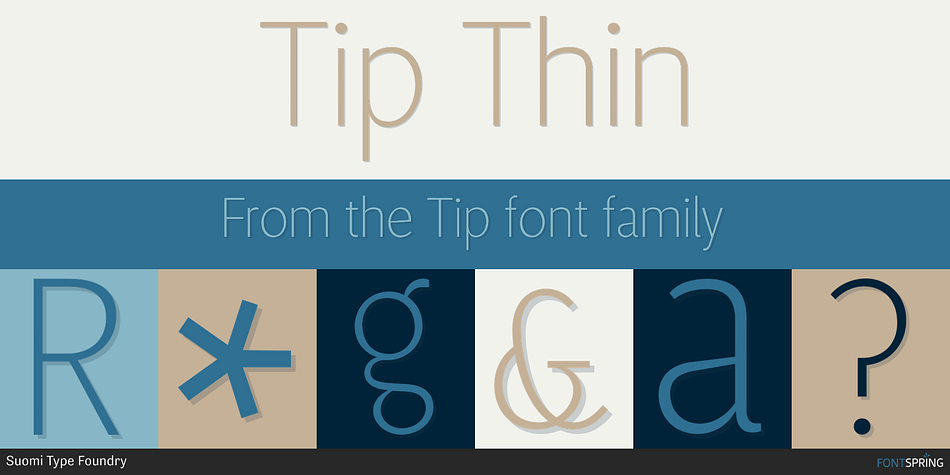
Tip Thin
Tip is a sans serif font family. This typeface has fourteen styles and was published by Suomi Type Foundry.
New, slightly calligraphic sans family with seven weights, Roman and Italic, all with Old Style Numerals and Small Caps, for both headlines and body text use.